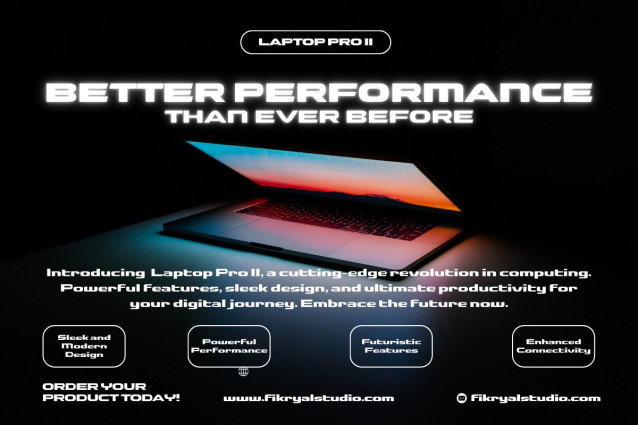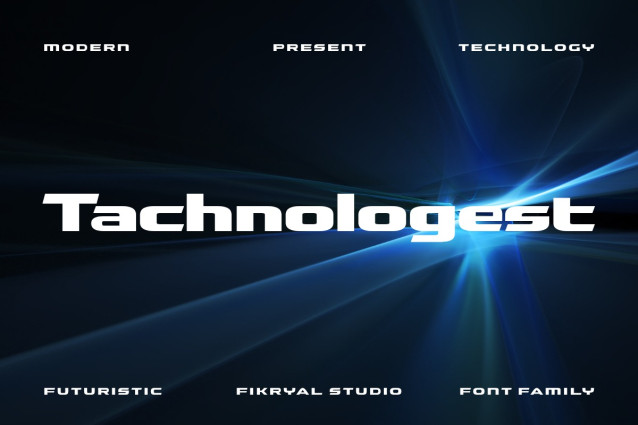
Tachnologest Font
Tachnologest Font – Modern Tech Font is a futuristic sans serif display typeface designed to deliver a sleek, precise, and cutting-edge look to any project. With its clean lines, geometric shapes, and modern minimalistic style, this font is perfect for brands and creatives who want to showcase a high-tech, professional image.